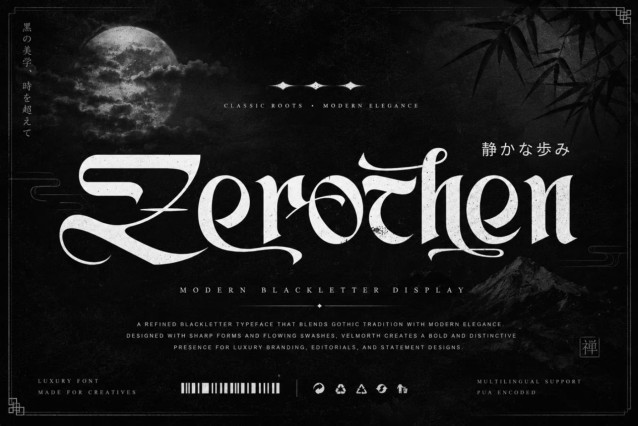
Zerothen is a modern blackletter display font featuring dramatic Gothic letterforms, flowing swashes, alternates, titling characters, ligatures, numerals, punctuation, and multilingual support. Perfect for luxury logos, fashion branding, streetwear, tattoo designs, album covers, movie titles, posters, packaging, and bold editorial typography.